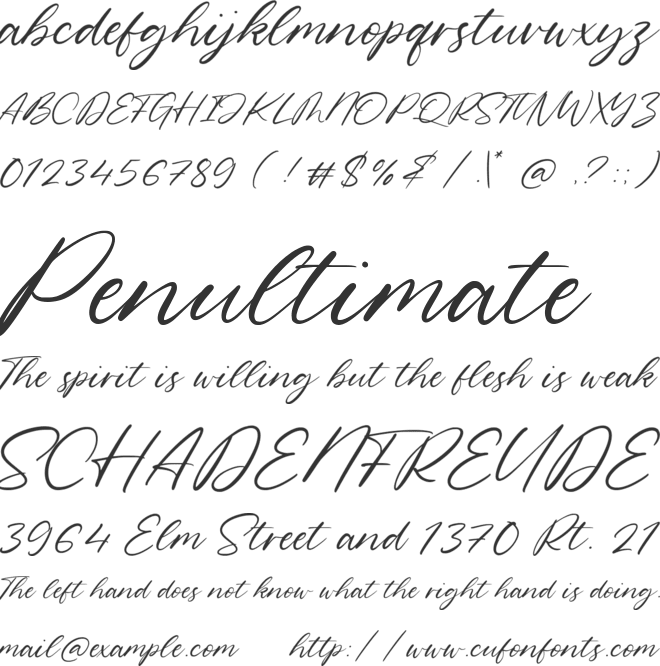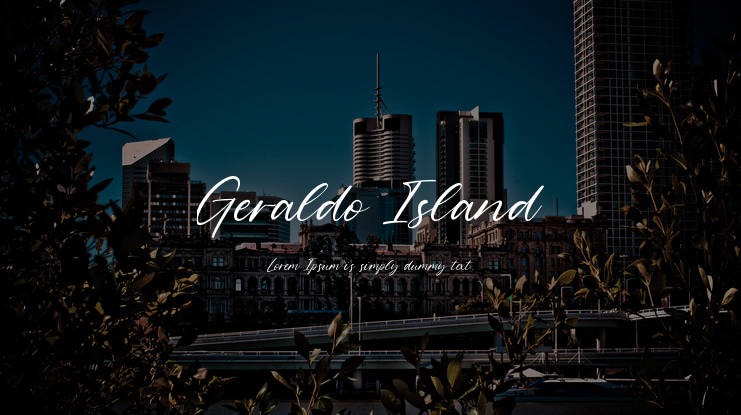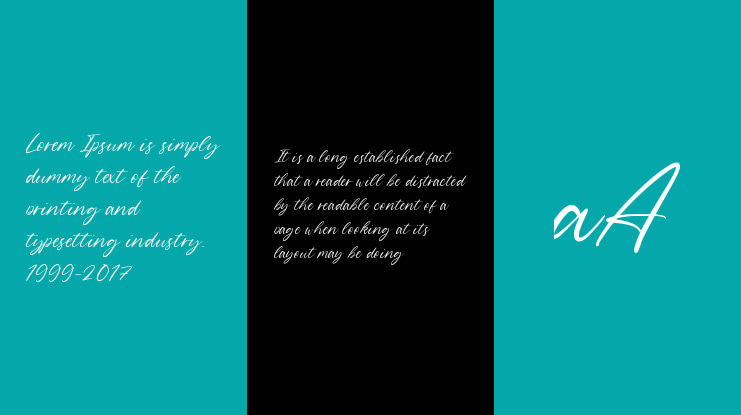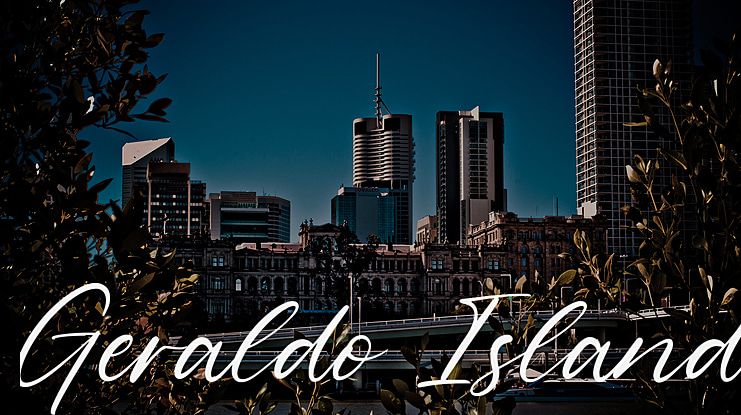
Geraldo Island Font
Balpirick Studio
Proudly Present, Geraldo Island Font.
Geraldo Island is a Modern Handwritten Font.
Geraldo Island is perfect for product packaging, branding project, megazine, social media, wedding, or just used to express words above the background.